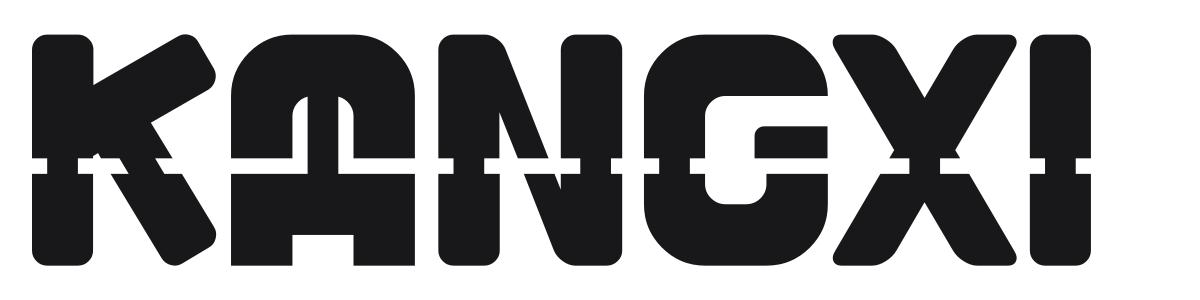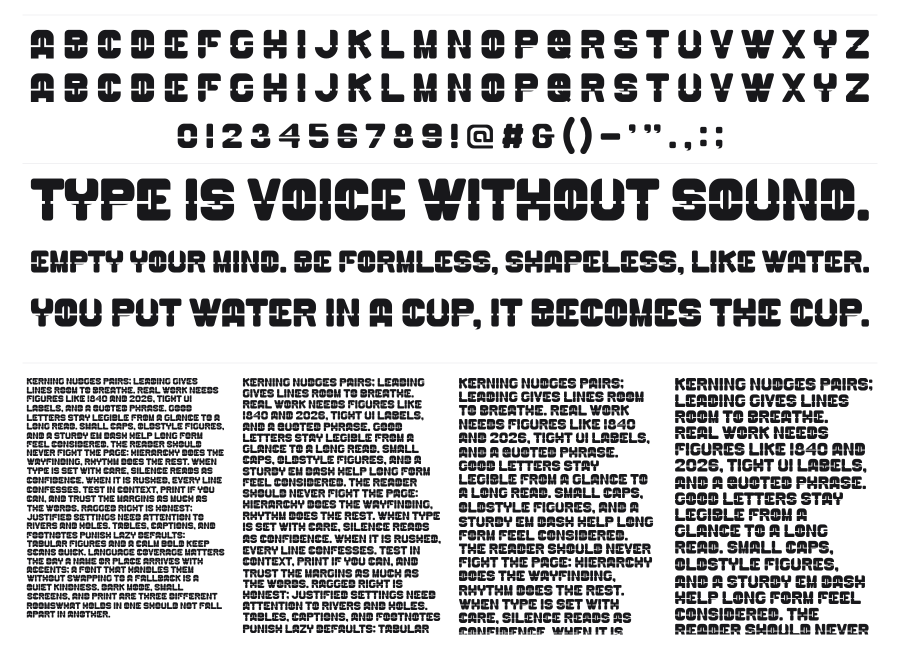
Kangxi
Kangxi is a bold geometric sans with dramatic horizontal slice cuts running through every character, splitting each letter into stacked bands like a stencil pulled through a shredder. The effect is heavy and industrial, landing somewhere between military stencil and futurist graphic design. It commands attention at large sizes and reads as confident and raw.